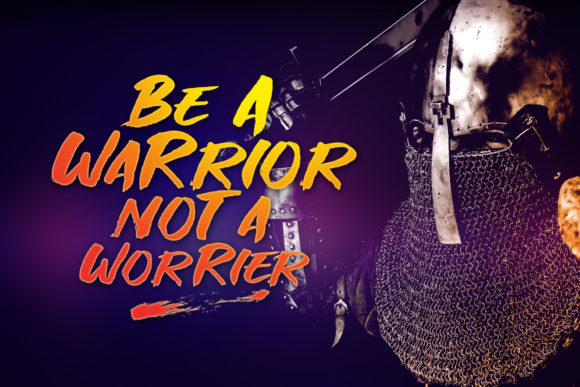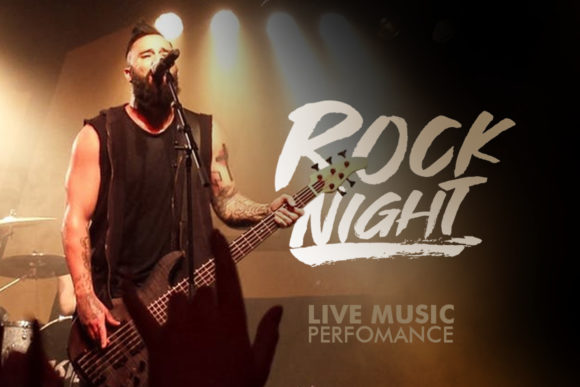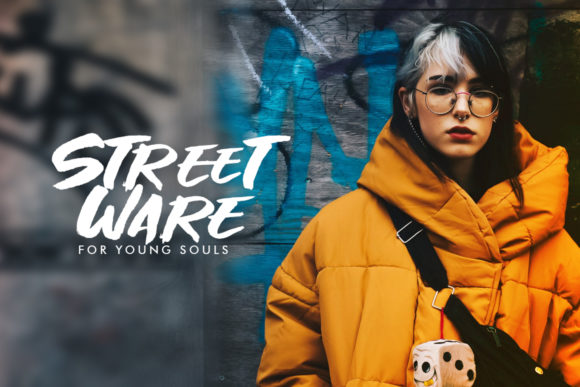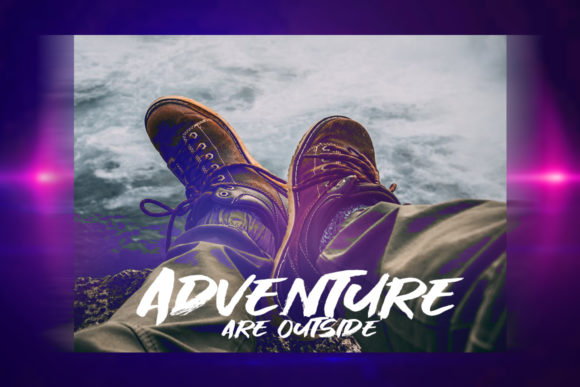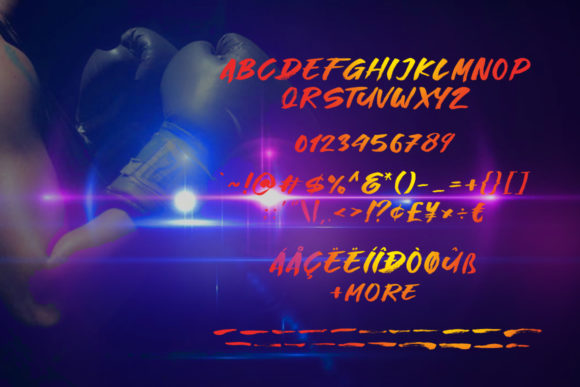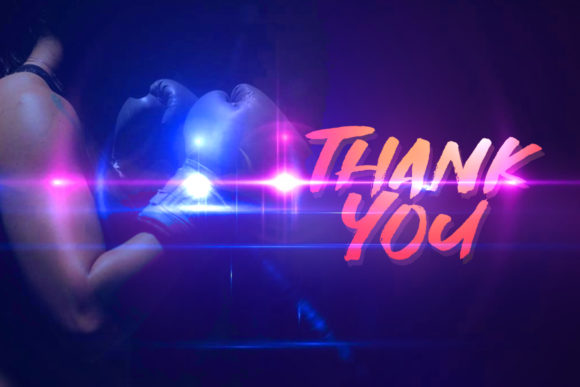
Great Fighter Font
About Great Fighter Font
The Great Fighter is a fresh handwritten brush font with an elegant and vintage feel. It will add a retro touch to any design project.